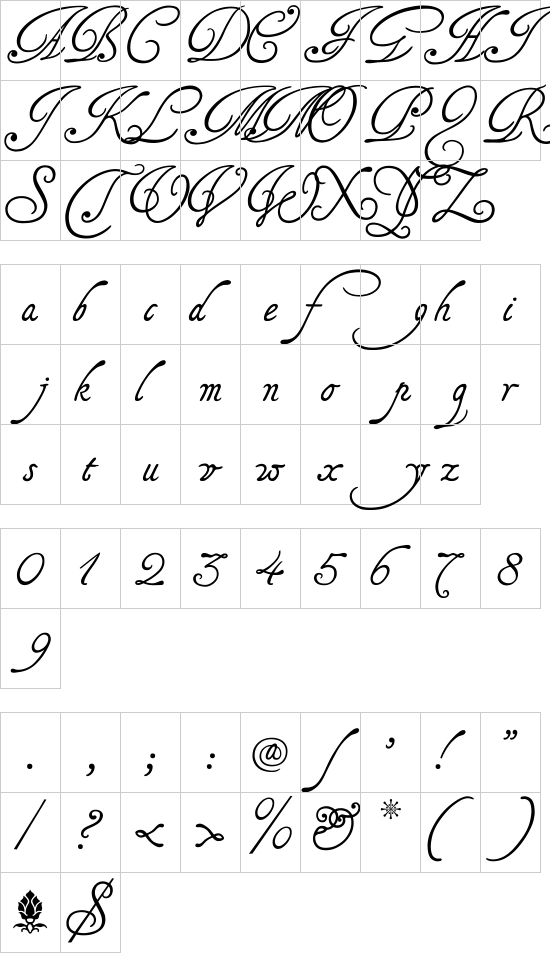
TagettesPlus
About TagettesPlus
TagettesPlus is a casual script font with looped, flowing letterforms and an easygoing, hand-lettered feel. The strokes connect with relaxed loops and a natural rhythm, suggesting comfortable handwriting rather than formal calligraphy, with a warm, friendly tone.